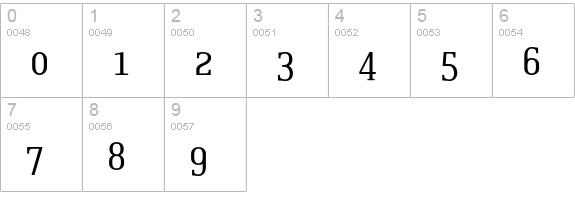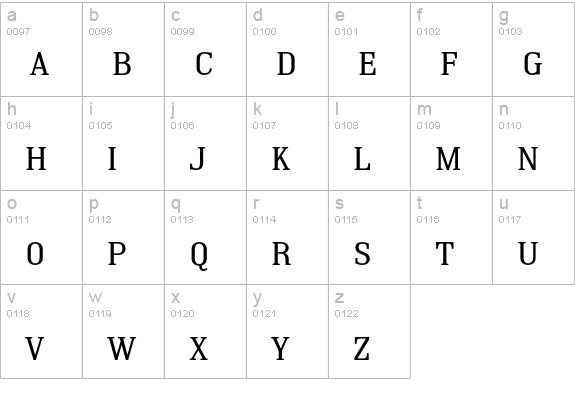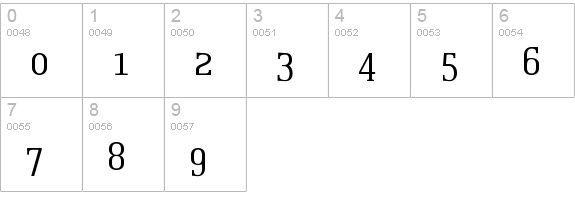
Krasivyi SCOsF Font Details
Introducing the stunning Krasivyi SCOsF font, a captivating typeface that exudes elegance and sophistication. With its graceful curves and intricate details, this font is perfect for adding a touch of luxury to your design projects. Whether you're working on a wedding invitation, branding materials, or a special event poster, Krasivyi SCOsF will elevate your creations to new heights. The best part? Krasivyi SCOsF font is completely free to download at FontsMarket.com. Now you can enjoy the beauty and versatility of this exquisite font without any cost. Don't miss out on the opportunity to enhance your designs with the timeless charm of Krasivyi SCOsF. Download it today and let your creativity shine!